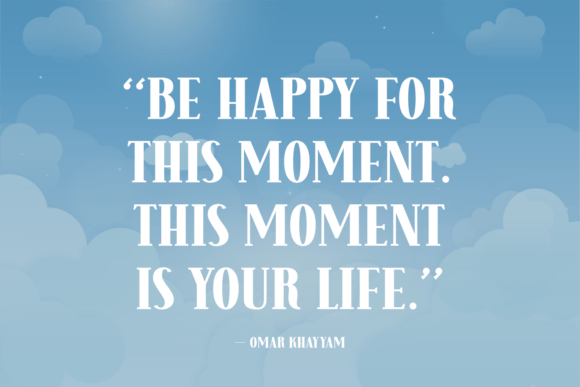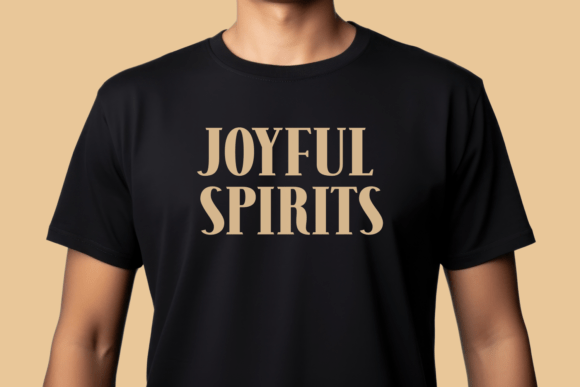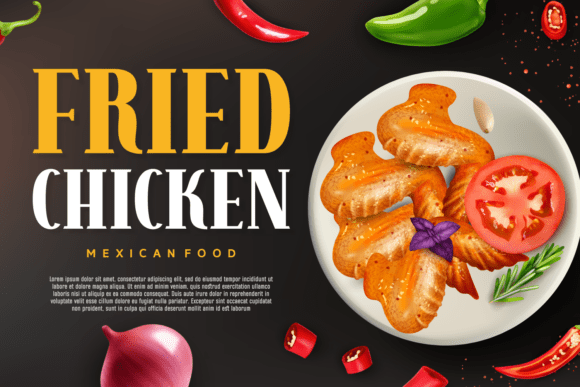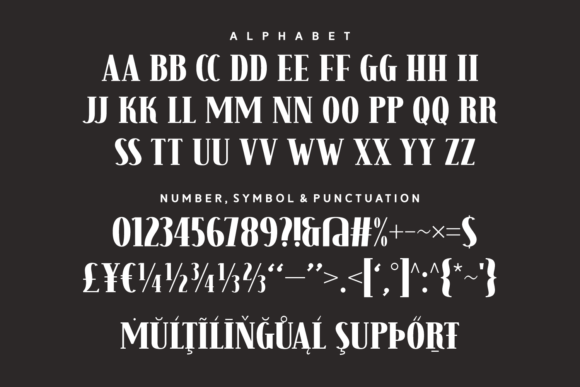
Introducing “Don’t Crying” – The Ultimate Font Suite for Creative Expression
Are you tired of using the same old fonts in your designs? Look no further than “Don’t Crying”, a versatile treasure trove of fonts that is guaranteed to elevate your creative pursuits. This comprehensive font suite combines the robustness of a Serif Font with the charm of Elegant Fonts, marrying modernity with nuanced playfulness.
A Font Suite for All Your Creative Needs
“Don’t Crying” is more than just a collection of fonts – it’s a framework that channels authenticity while catering to a variety of needs. Whether you’re a photographer looking for the perfect font to accentuate your images, a fashion designer seeking a stylish font for your apparel designs, or an author looking for a font to make your book covers stand out, “Don’t Crying” has got you covered.
Clean and Crisp Communication
One of the key features of “Don’t Crying” is its array of Card Fonts and Clean Fonts. These fonts are designed to provide crisp, clear communication, making them perfect for designing magazine spreads, packaging, and even crafting heartfelt greeting cards. With “Don’t Crying”, you can ensure that your message is conveyed with clarity and style.
The versatility of “Don’t Crying” extends to a wide range of design applications. Whether you’re looking to craft engaging logotypes, create impactful quotes, or design trendy T-Shirt graphics, this font suite has the perfect font for you. The Smooth Fonts in the “Don’t Crying” suite are perfect for creating smooth and stylish text, while the Lovely Fonts are ideal for imprinting a touch of love and elegance into your designs.
Multilingual Support
What sets “Don’t Crying” apart from other font suites is its multilingual support. This means that you can use these fonts to create designs in multiple languages, making it a perfect tool for designers and crafters who work with international clients or want to reach a global audience.
Applications of “Don’t Crying”
The applications of “Don’t Crying” are endless. Here are a few examples:
- Photography Accents: Use the fonts in “Don’t Crying” to add a touch of elegance to your photography accents.
- Apparel Design: Create stylish and trendy T-Shirt designs with the fonts in “Don’t Crying”.
- Book Covers: Use the fonts in “Don’t Crying” to create eye-catching book covers that stand out.
- Branding: Develop a strong brand identity with the fonts in “Don’t Crying”.
- Magazine Spreads: Design beautiful magazine spreads with the Clean Fonts in “Don’t Crying”.
- Packaging: Use the fonts in “Don’t Crying” to create stylish and effective packaging designs.
- Greeting Cards: Craft heartfelt greeting cards with the Card Fonts in “Don’t Crying”.
Why Choose “Don’t Crying”?
So why choose “Don’t Crying” over other font suites? Here are a few reasons:
- Versatility: “Don’t Crying” offers a wide range of fonts that can be used for various design applications.
- Multilingual Support: The fonts in “Don’t Crying” support multiple languages, making it a perfect tool for designers and crafters who work with international clients.
- Elegance and Modernity: The fonts in “Don’t Crying” combine elegance and modernity, making them perfect for creating stylish and sophisticated designs.
- Crisp and Clear Communication: The Clean Fonts in “Don’t Crying” ensure crisp and clear communication, making them perfect for designing magazine spreads, packaging, and other materials where clarity is key.
| Font Name | Don’t Crying Font |
| Author | Anto (7NTypes) |
In conclusion, “Don’t Crying” is a versatile treasure trove of fonts that is guaranteed to elevate your creative pursuits. With its wide range of fonts, multilingual support, and combination of elegance and modernity, “Don’t Crying” is the perfect tool for designers and crafters who want to create stylish and effective designs. Whether you’re looking to create photography accents, apparel designs, book covers, or branding materials, “Don’t Crying” has got you covered.